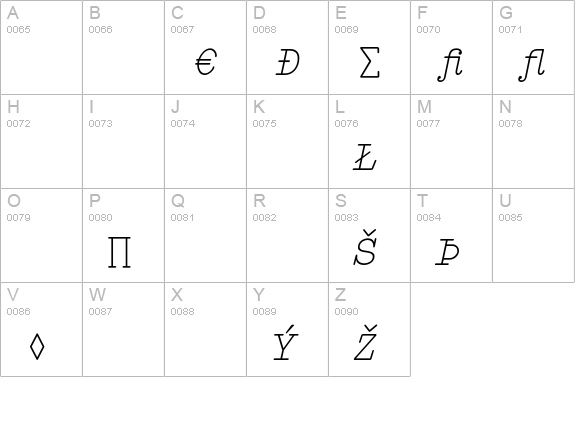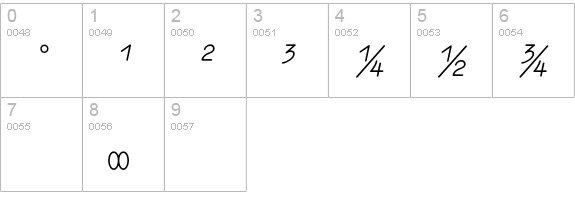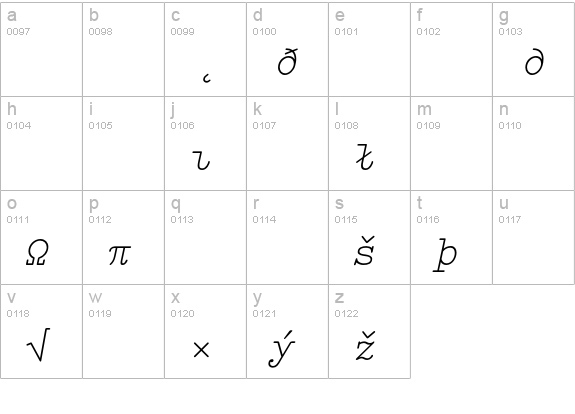
Elementa Expert Italic Font Details
Elementa Expert Italic is a distinctive, italic variant in the Elementa typeface family \xE2\x80\x94 well suited to design and typography projects.
Elementa Expert Italic is a sophisticated and elegant font that exudes professionalism and style. With its sleek and sleek design, Elementa Expert Italic is perfect for adding a touch of sophistication to any project. The italicized style gives it a modern and dynamic look, making it ideal for use in branding, advertising, and design projects. What sets Elementa Expert Italic apart is that it is available for free download at FontsMarket.com. This means that you can easily access this high-quality font without any cost, making it a valuable addition to your font library. Whether you are a designer, developer, or simply someone looking to elevate your projects with a premium font, Elementa Expert Italic is a fantastic choice. Don't miss out on the opportunity to enhance your work with this stunning and versatile font.